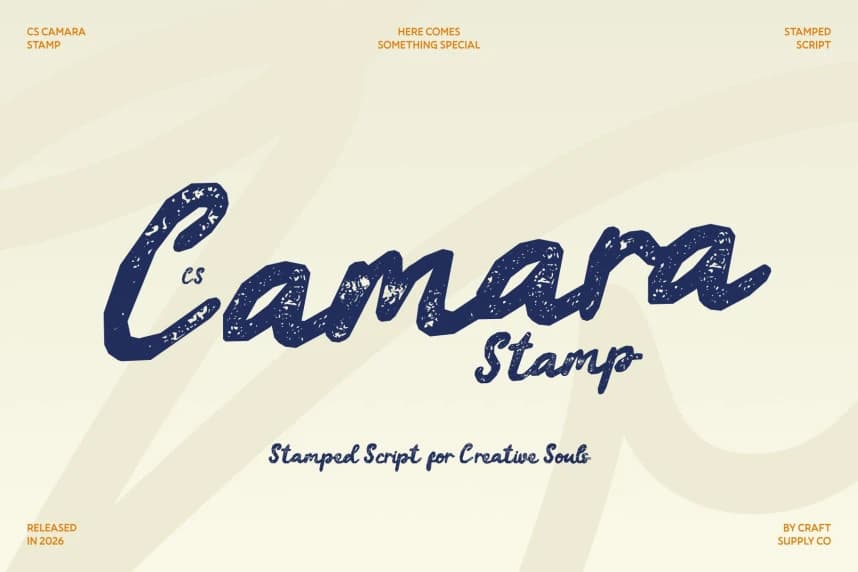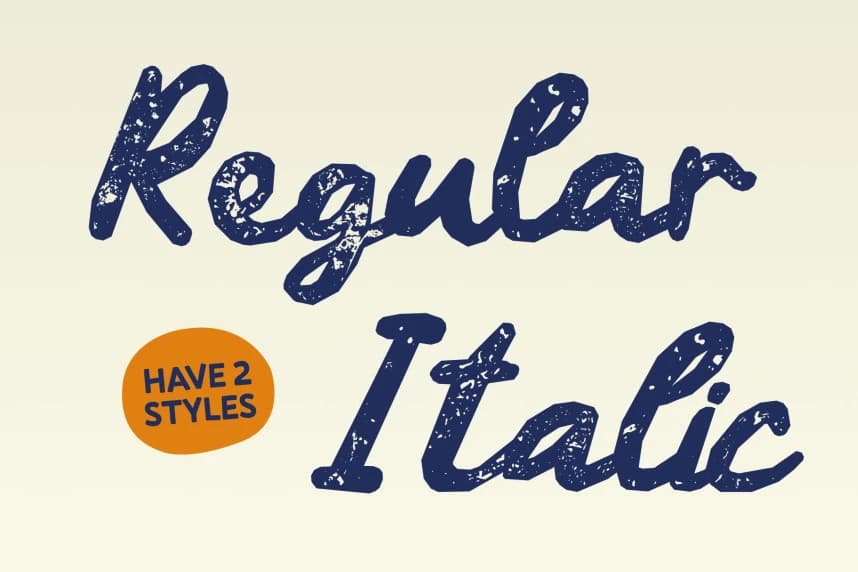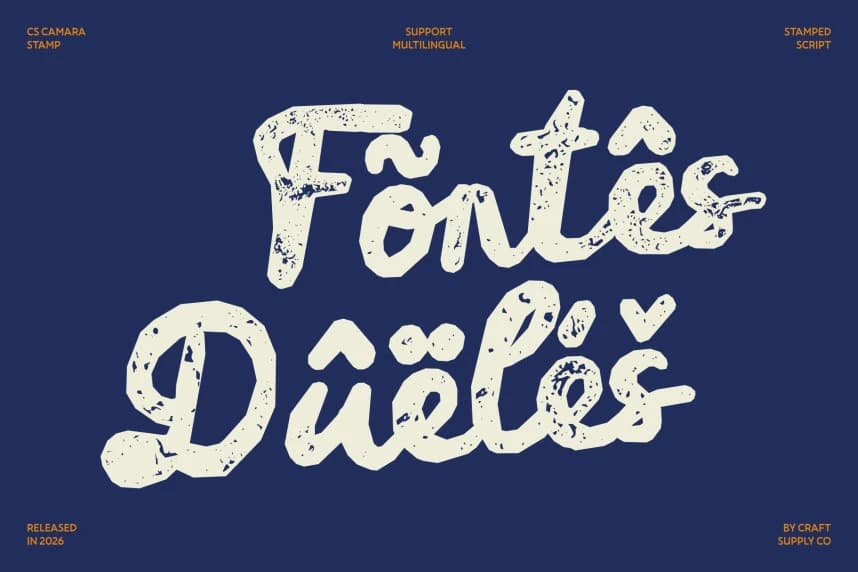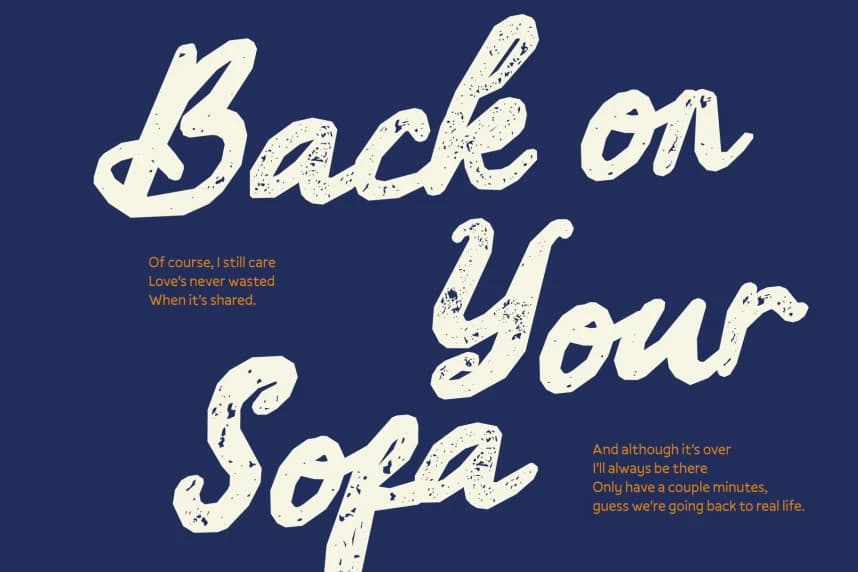
CS Camara Stamp Font
CS Camara Stamp Font – Graceful Flow with Artistic Handwritten Beauty Handwritten Script with Flowing Charm. This is a handwritten script font that captures the natural elegance of flowing handwriting.